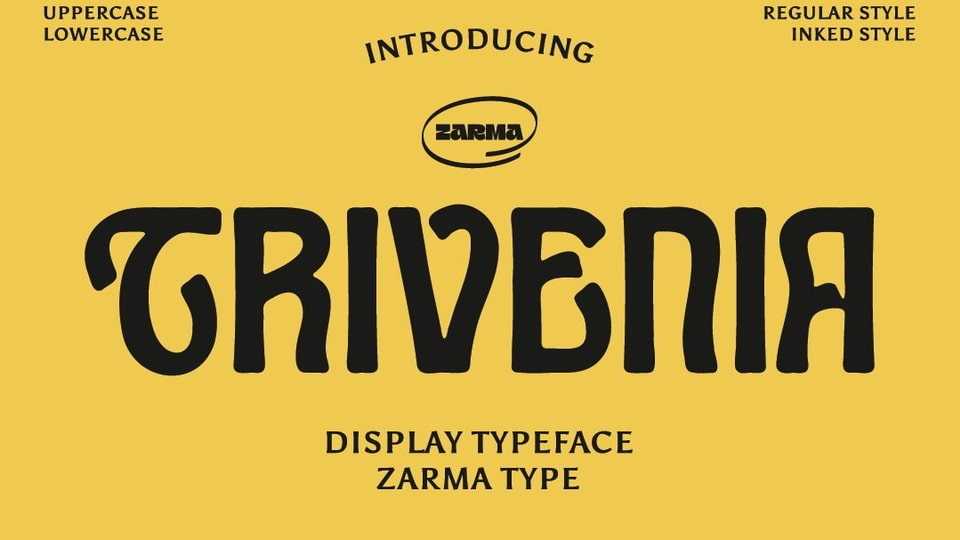
Download Trivenia font, a display typeface inspired by such an amazing “Baldur Type Specimen”. Trivenia has a classic shape with a modern touch on its curves.
Designer: Zarma Type Foundry